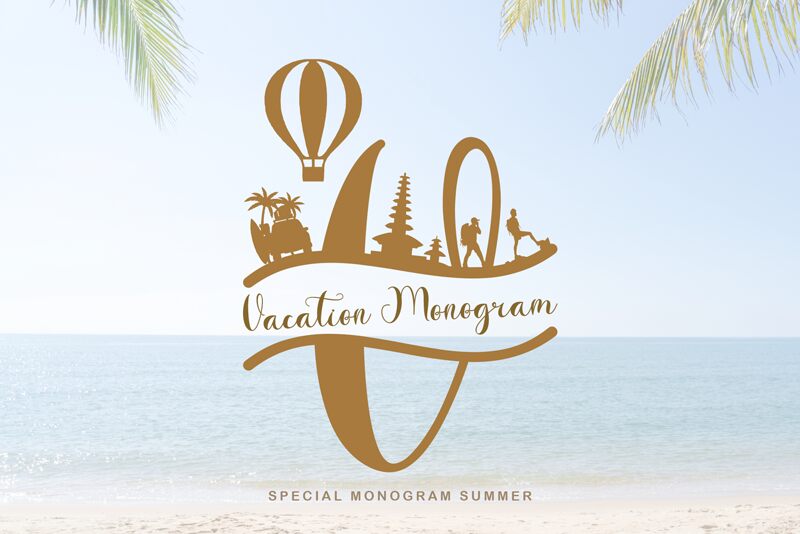
"Vacation Monogram" by Selvia Design is a captivating calligraphic font that exudes a sense of leisure and elegance. Its flowing, cursive strokes evoke the graceful movement of waves, while the delicate, yet impactful letterforms lend themselves to a wide range of applications, from luxury branding and event invitations to editorial layouts and product packaging.
The font's balanced aesthetic, with its seamless ligatures and subtle flourishes, creates a timeless, sophisticated appeal that can elevate any design project.
Vacation Monogram's versatility makes it an excellent choice for designers seeking to infuse their work with a touch of refined, vacation-inspired charm.